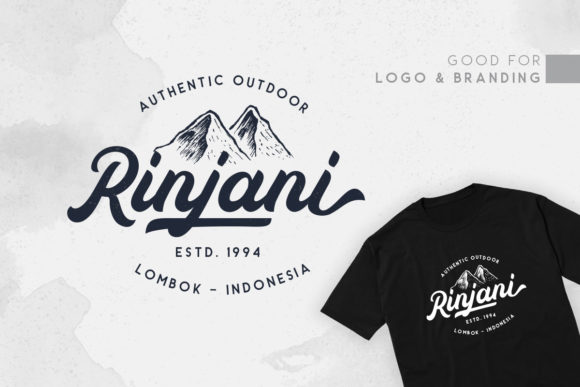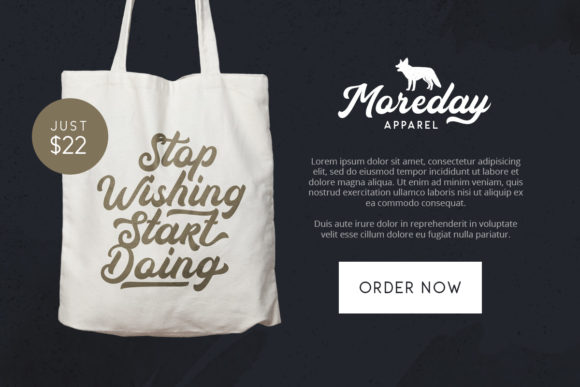
Auckland Script Font
db-ku.com - Script & Handwritten -- The Auckland is a bold script font. It has a strong look which can be used for logos, branding, quotes, and every other design which needs to stand out.